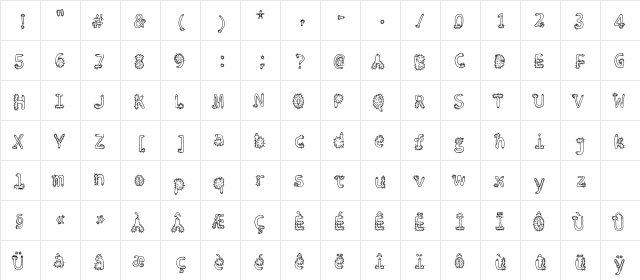
Penis Typography Regular Regular
| Designer | Felix Farjas |
Design Context for Penis Typography Regular Typeface
Penis Typography Regular is a composed and adaptable typeface that performs quietly and consistently across a wide range of design contexts.